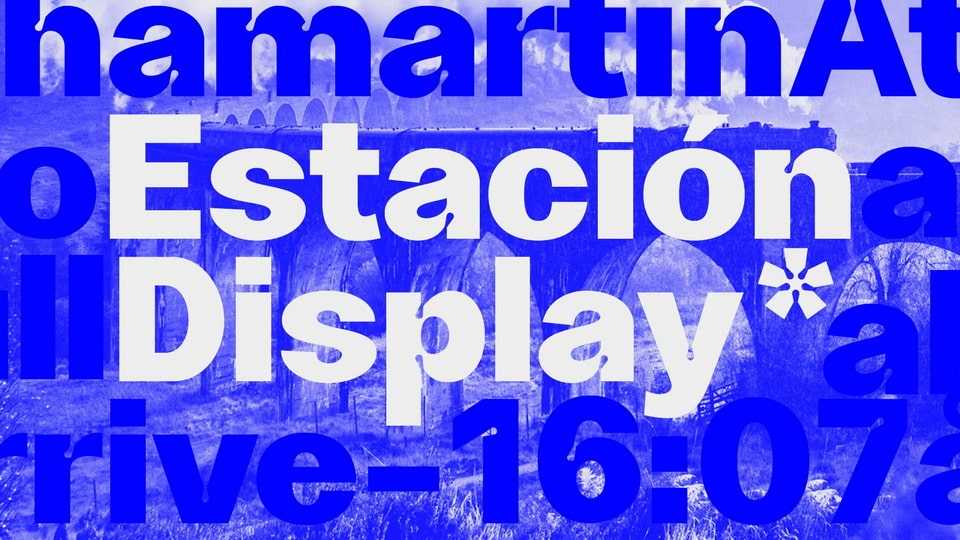
Download Estación Display font, a sans serif typeface based on Helvetica shapes but with a twist that made it unique. Estación Display is suitable for packaging and some big headlines.
Designer: Diego González